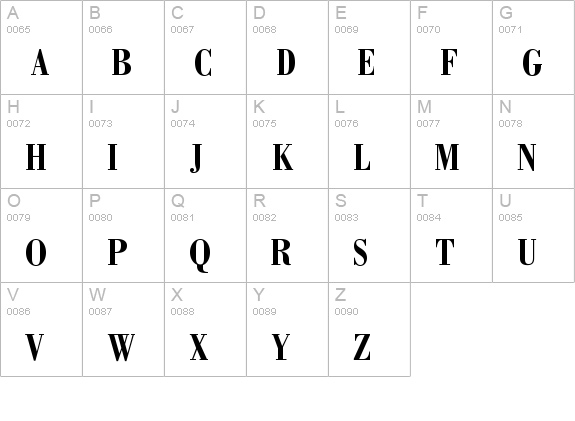
Bodoni Bold Condensed is a strong, high-contrast, condensed-width variant in the Bodoni typeface family \xE2\x80\x94 well suited to headlines, attention-grabbing titles, and strong calls-to-action.
Bodoni Bold Condensed is a stylish and modern typeface that exudes elegance and sophistication. With its sleek lines and sharp angles, this font is perfect for creating eye-catching headlines, titles, and other display text. The condensed design allows for maximum impact in a minimal amount of space, making it ideal for projects where space is limited. Whether you're designing a poster, logo, or branding materials, Bodoni Bold Condensed is sure to make a statement. And the best part? Bodoni Bold Condensed is available for free download at FontsMarket.com. Simply visit the website to access this stunning font and elevate your designs to the next level. Don't miss out on this opportunity to add a touch of class to your projects with Bodoni Bold Condensed.